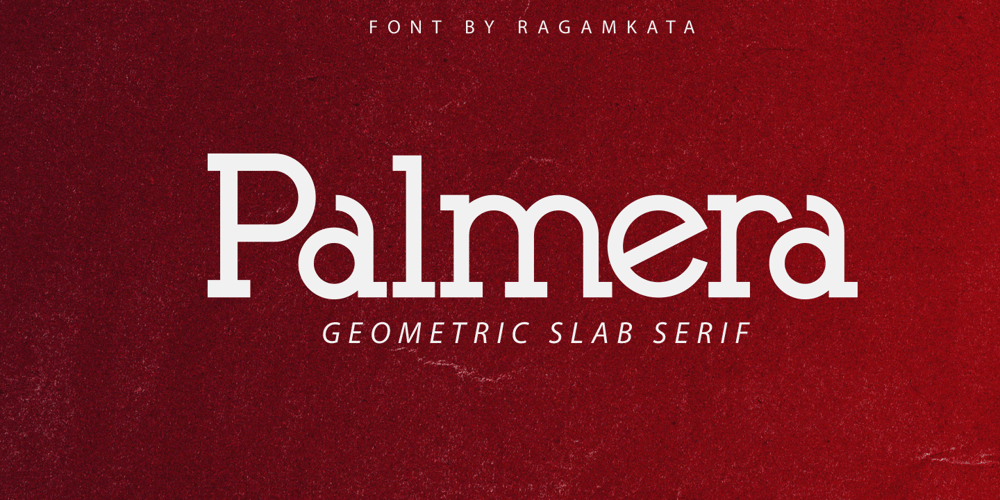
Palmera Outline Font Family was designed by Yogiswhara Dio Prakoso Riadi and published by RagamKata. Palmera Outline contains 4 styles and family package options. Palmera is a geometric slab serif font. Simple and sharp-looking, this typeface will truly inspire you to create spectacular designs that will impress everyone. Palmera font is perfect for your up coming projects. Such as logo branding, editorial design, fashion, adventure apparel, stationery design, sport design, blog design, modern advertising design, card invitation, badge, art quote, home decor, book/cover title, special events and any more.